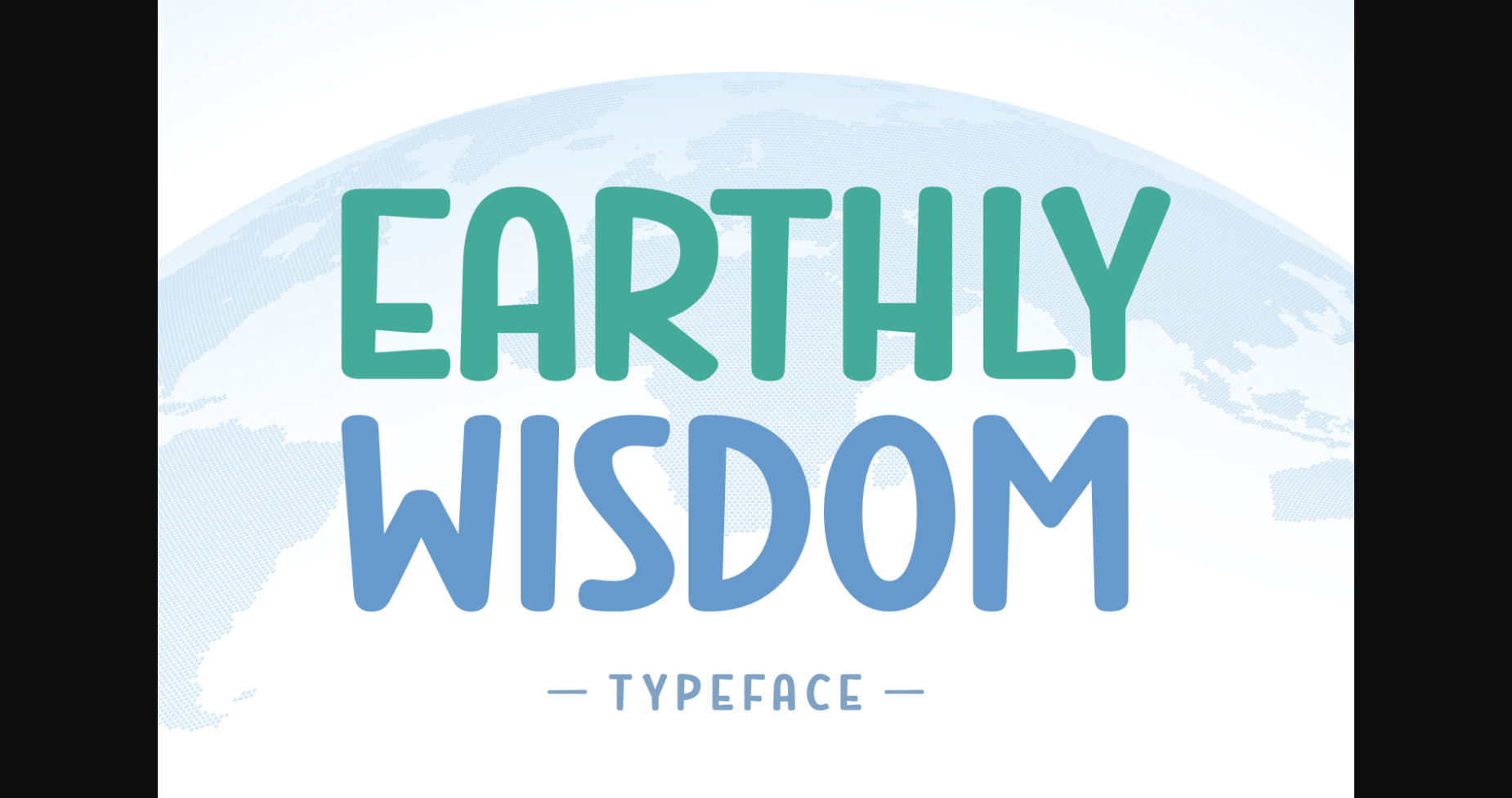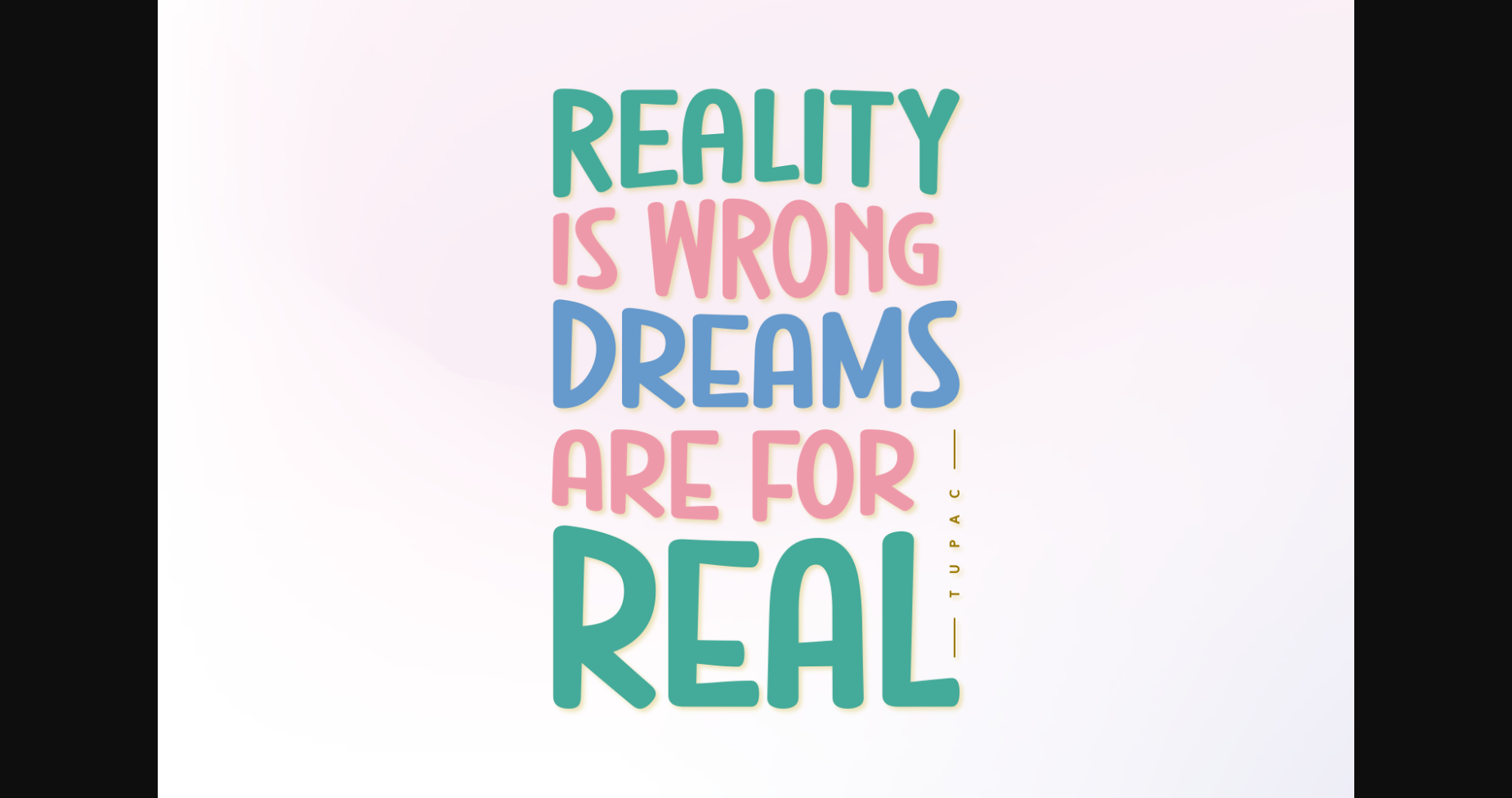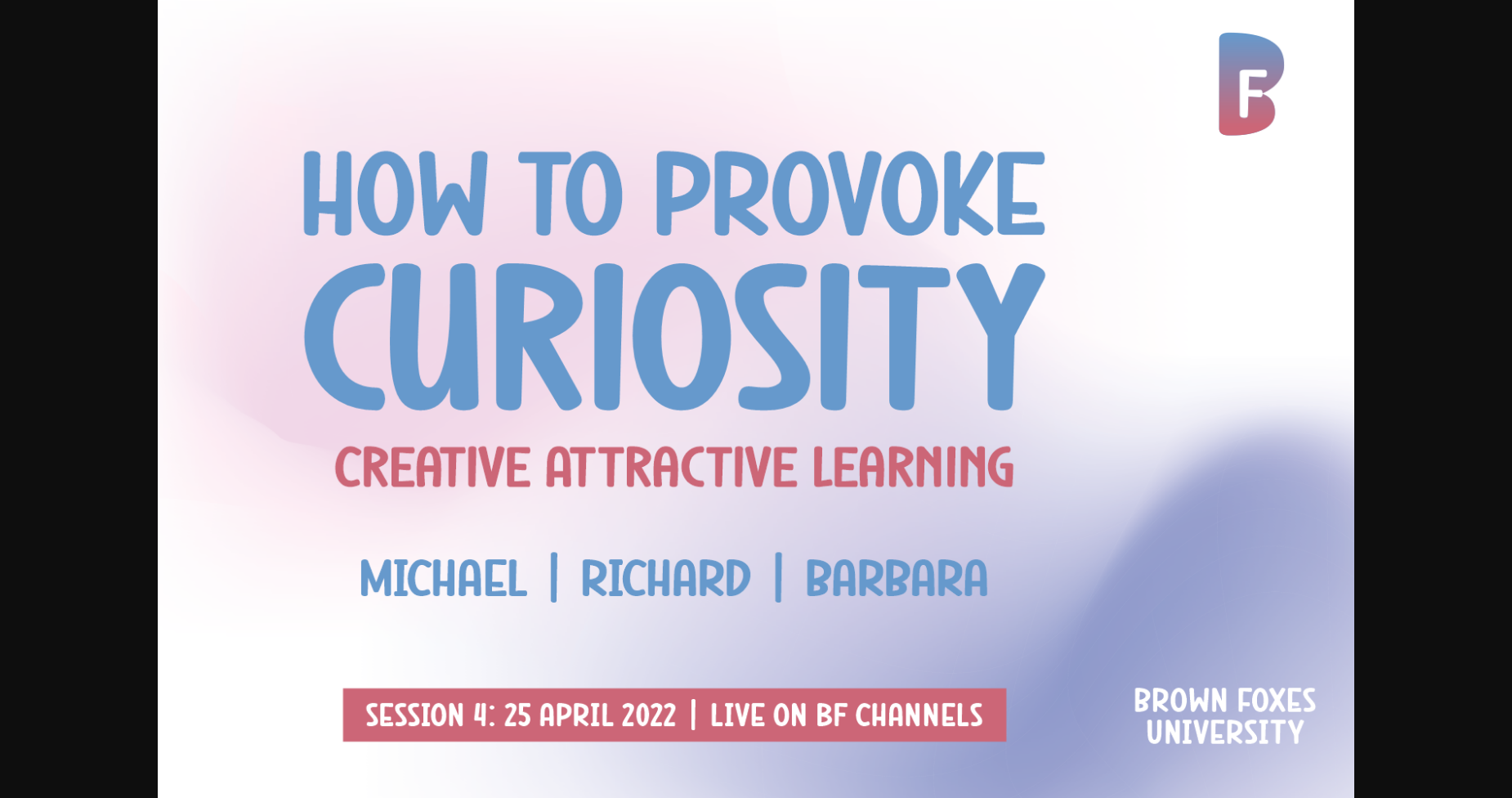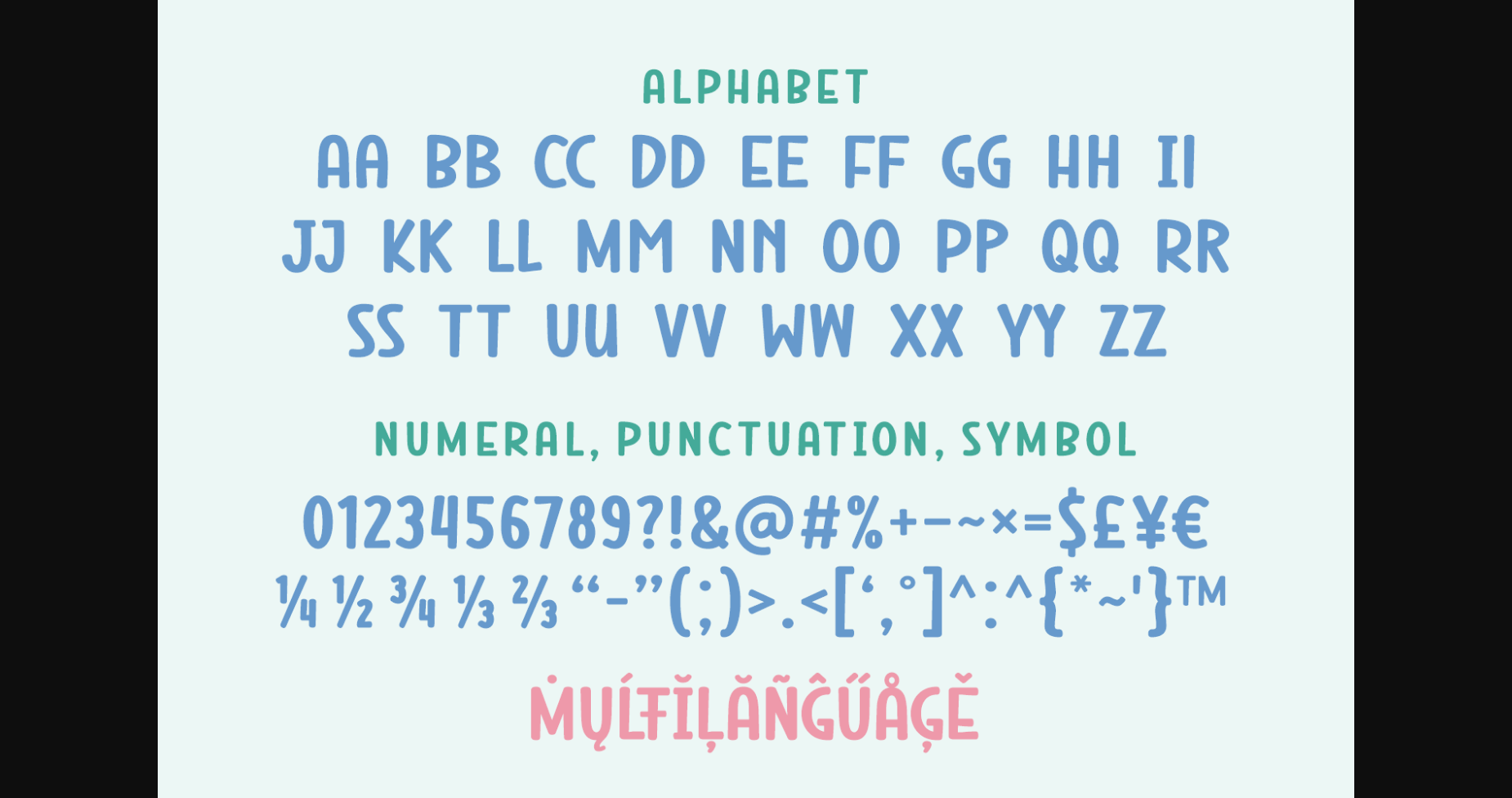
About Earthly Wisdom Font
Earthly Wisdom is a simple yet modern Sans Serif font that you can use for posters, headlines, books, movies, blogs, quotes, and logos.